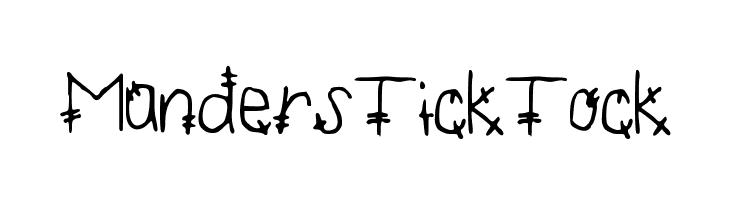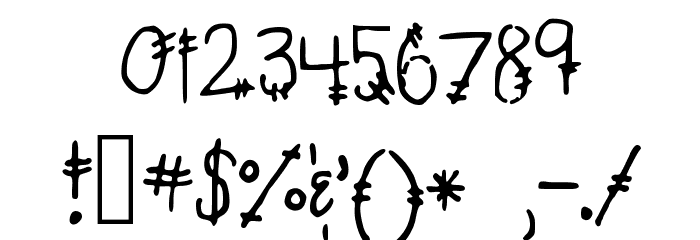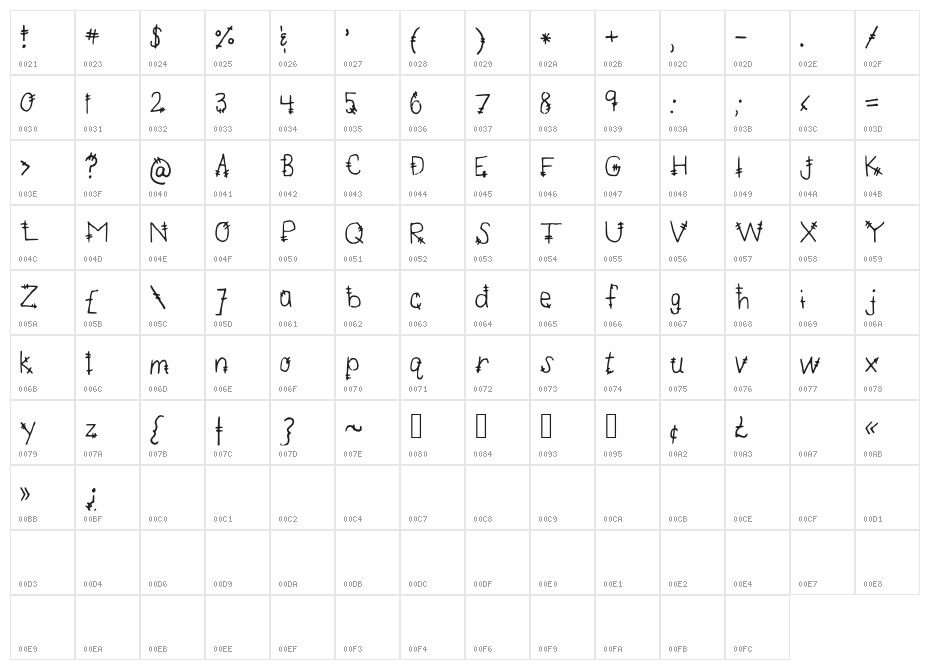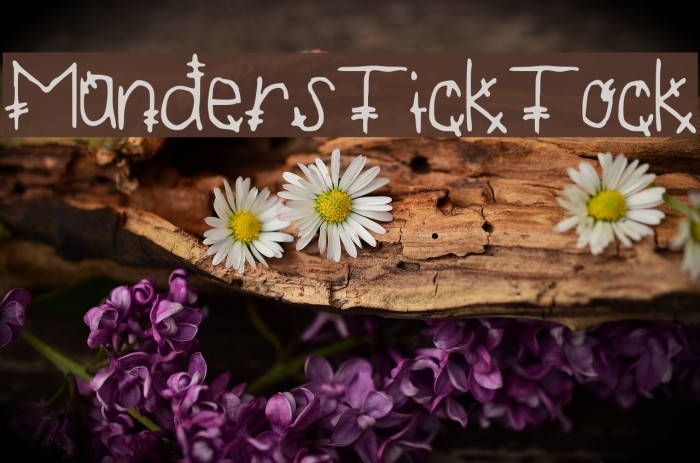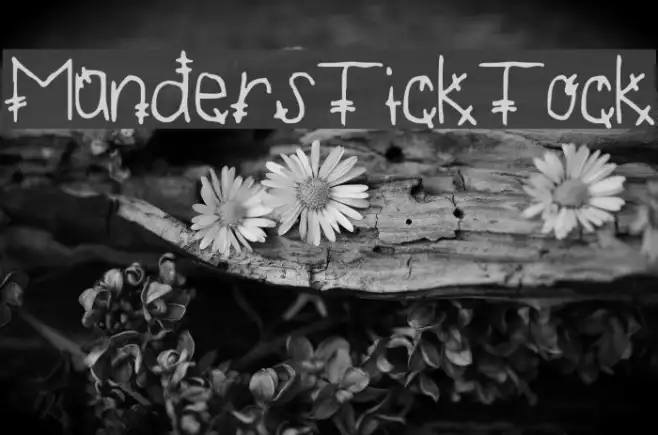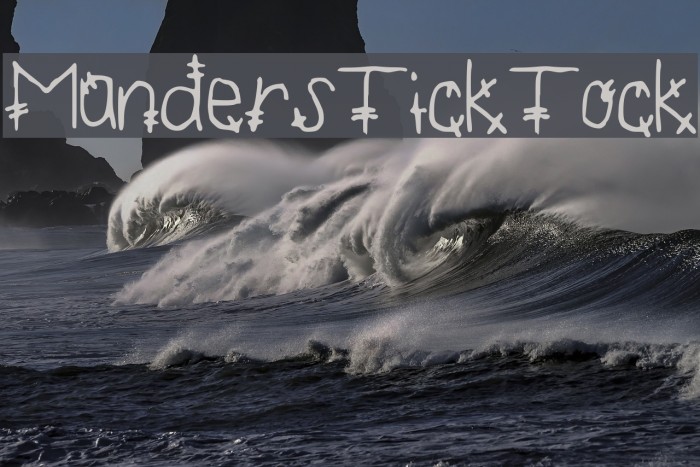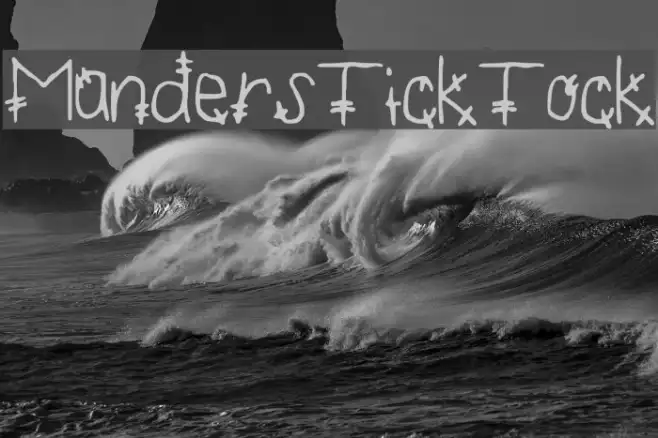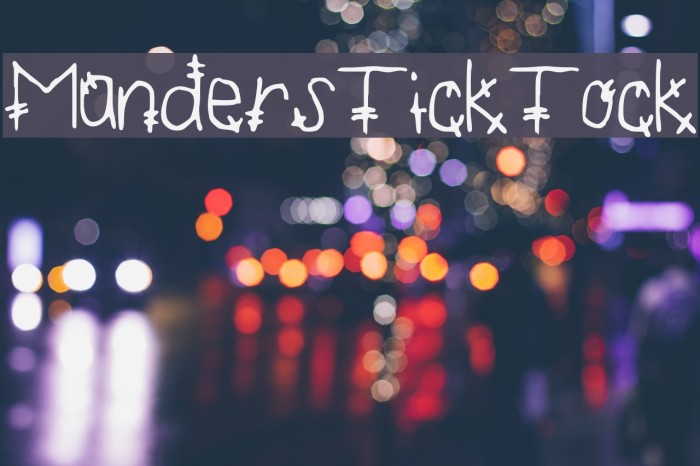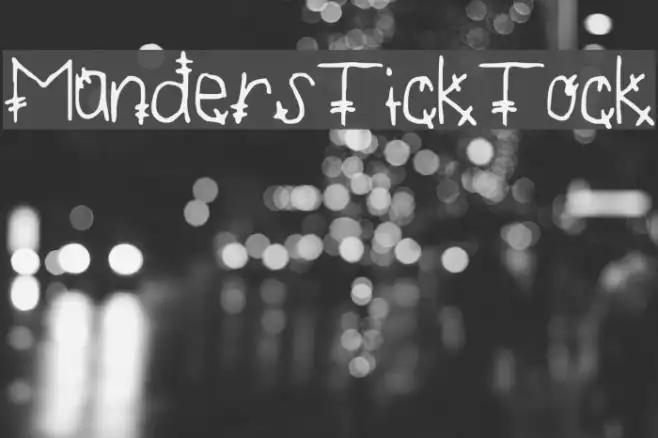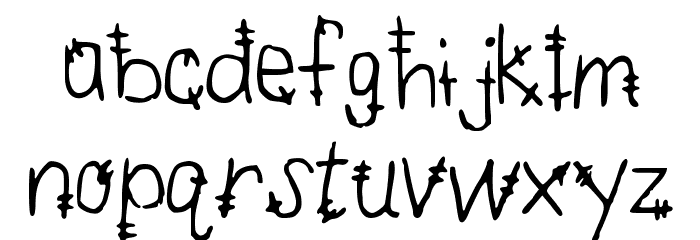
MandersTickTock Font
MandersTickTock Description
This font features a whimsical and playful design, characterized by its irregular, hand-drawn strokes that give it a quirky and unique appearance. The letters are adorned with small decorative elements, such as stars and dots, adding to its charm. The overall look is reminiscent of a child's doodles or a playful cartoon style, making it stand out with its creative flair. The uppercase and lowercase letters maintain a consistent style, while the numbers and special characters follow the same playful theme. This font is ideal for projects that require a fun and informal touch.